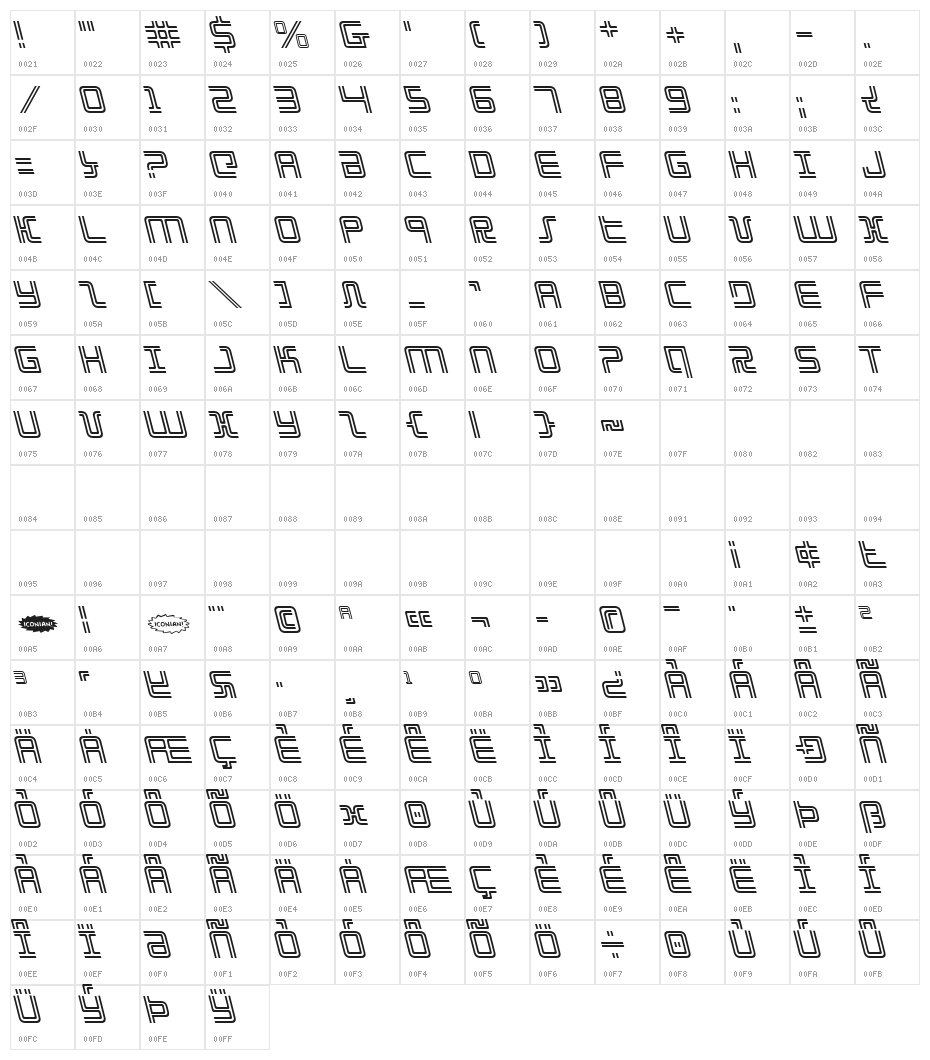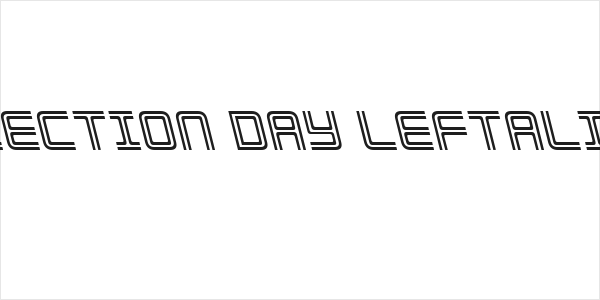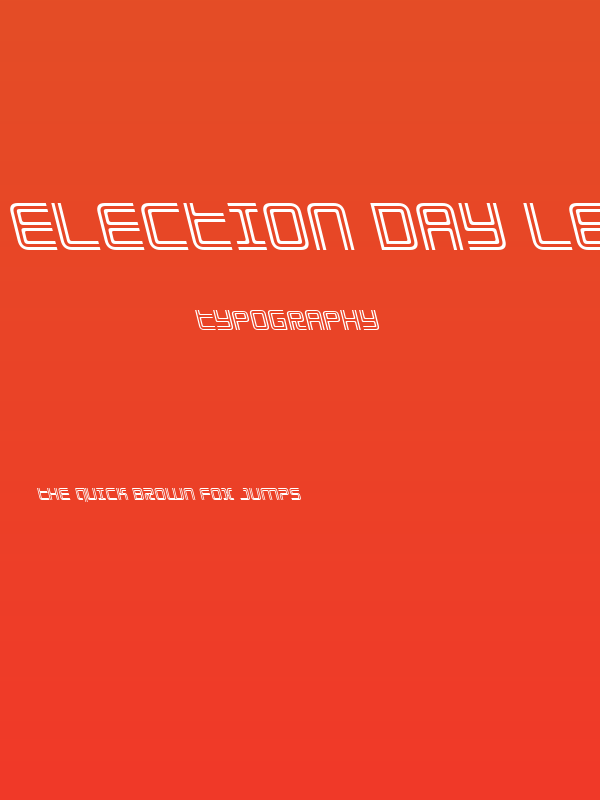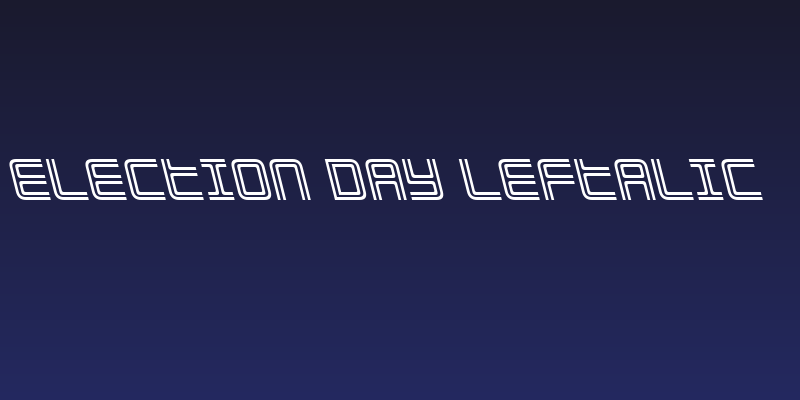
Election Day Leftalic Font
Election Day Leftalic Description
This font features a unique, futuristic design with a double-line structure that gives it a distinct, modern appearance. The characters are slightly slanted, adding a dynamic and forward-moving feel. The uppercase and lowercase letters maintain a consistent style, with geometric shapes and sharp angles. The numbers and special characters follow the same design principles, ensuring uniformity across all glyphs. The font's overall aesthetic is bold and eye-catching, making it suitable for projects that require a strong visual impact.
| Proposed Projects | Ideal for sci-fi themed projects, technology branding, video game titles, and modern posters. |